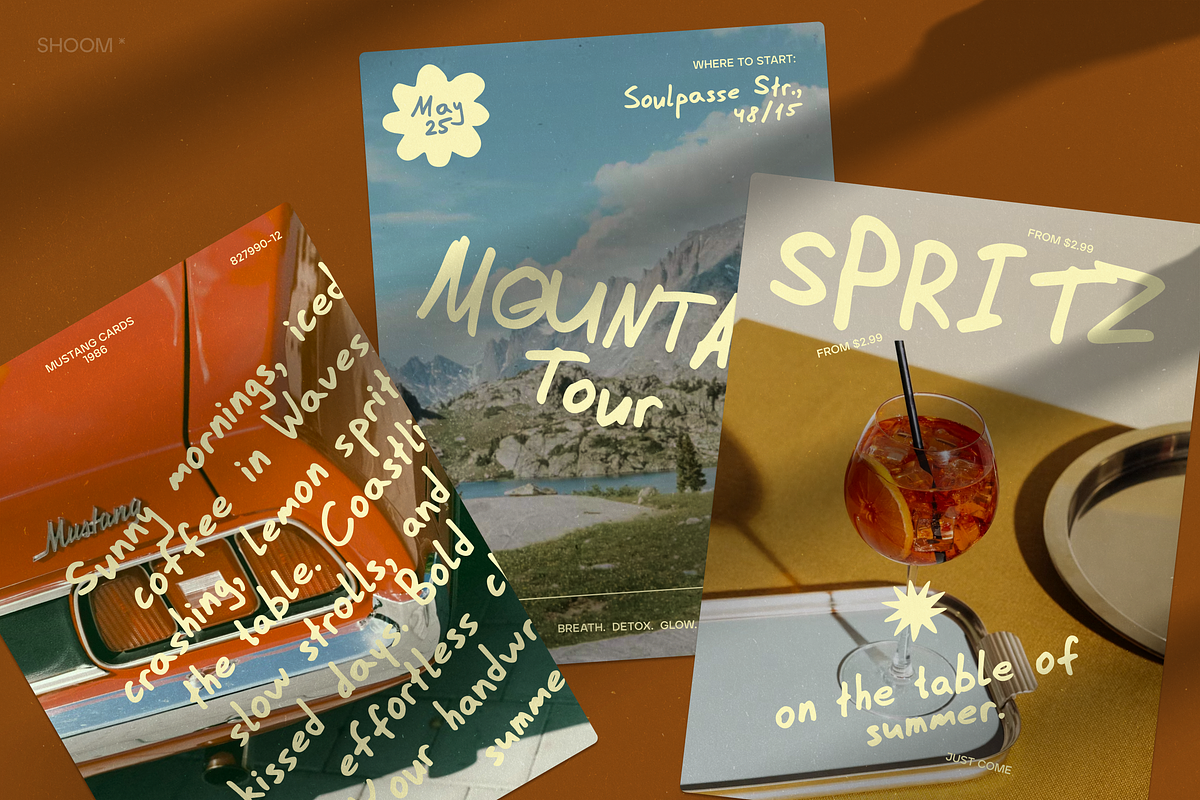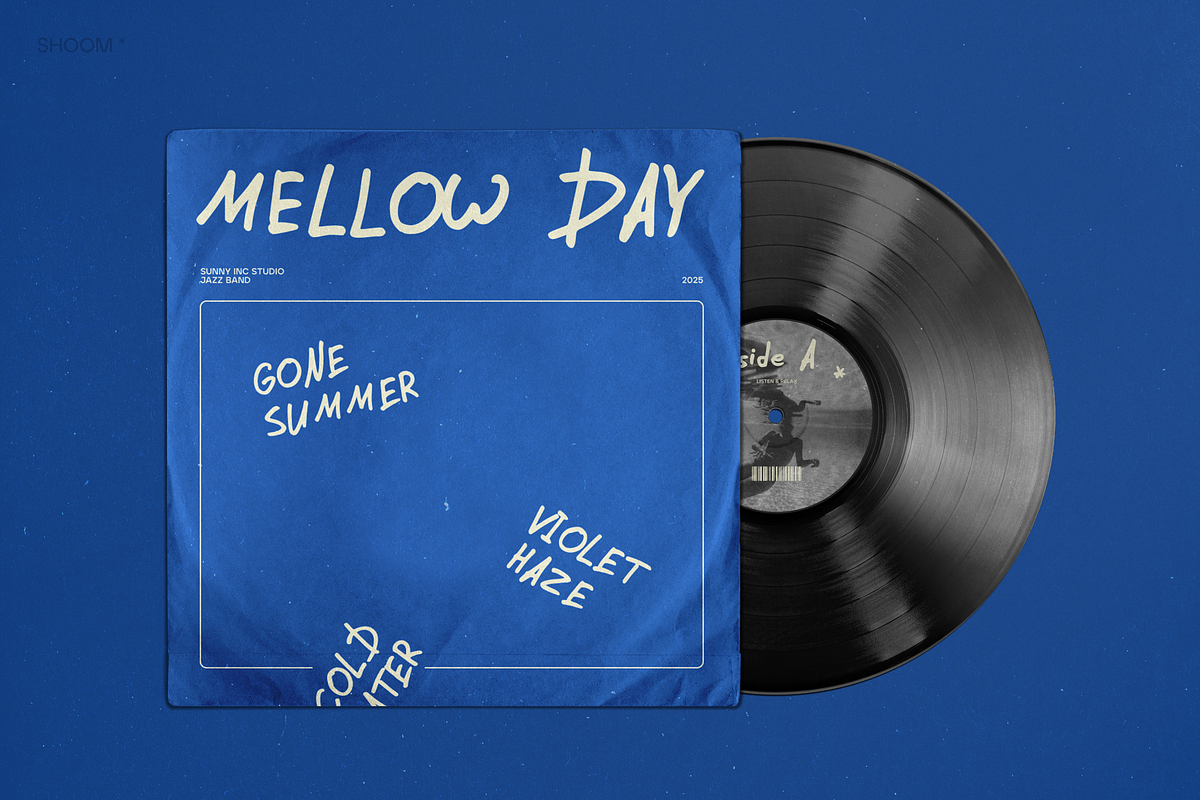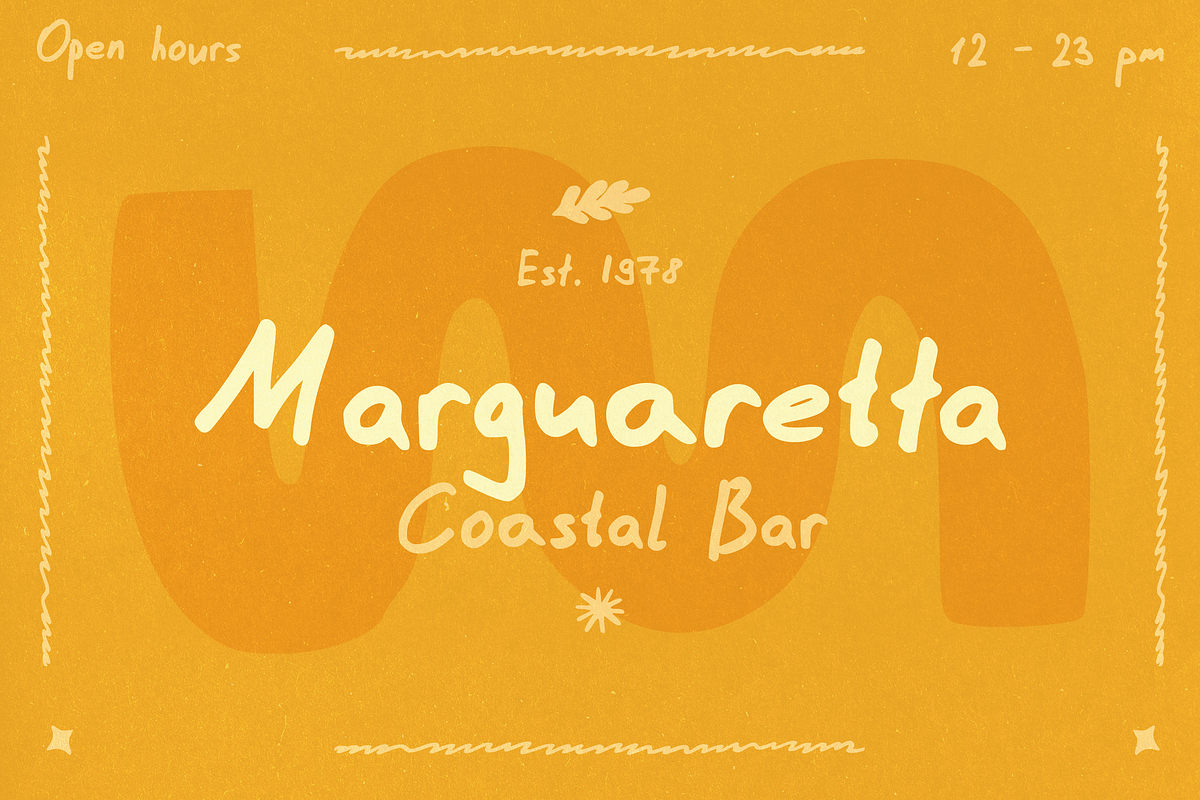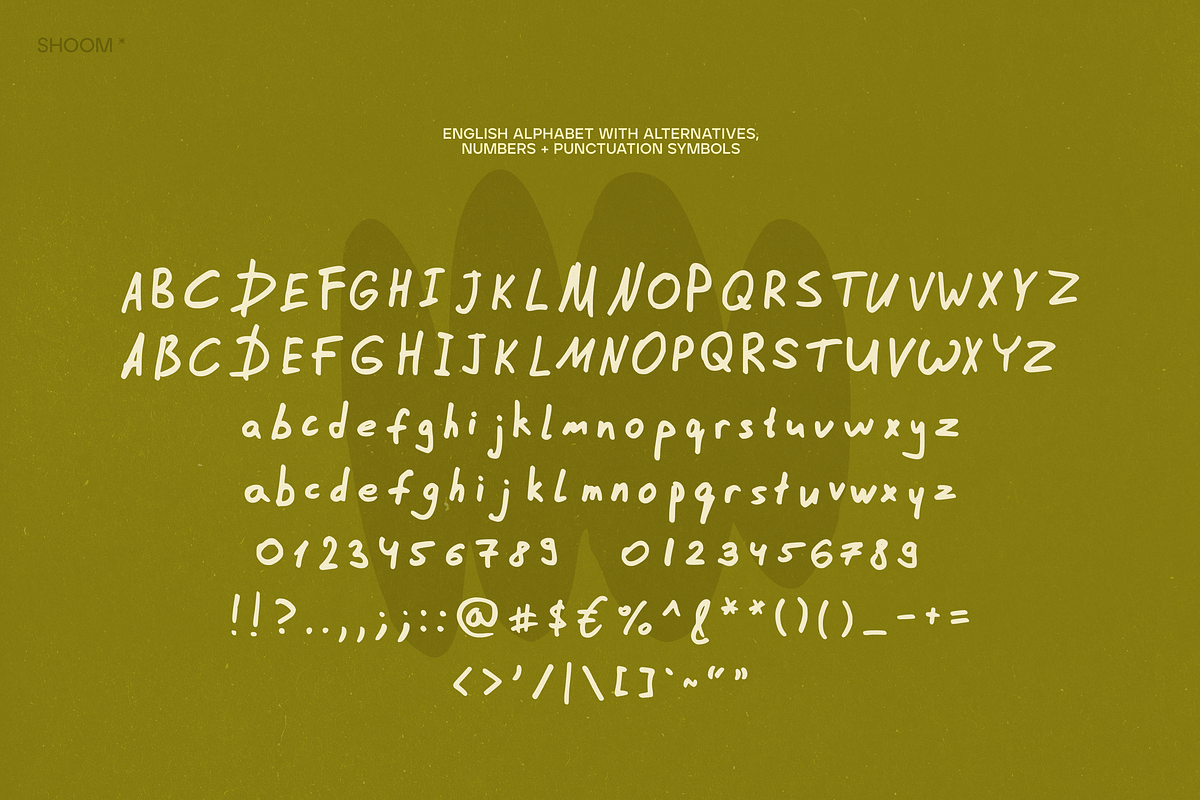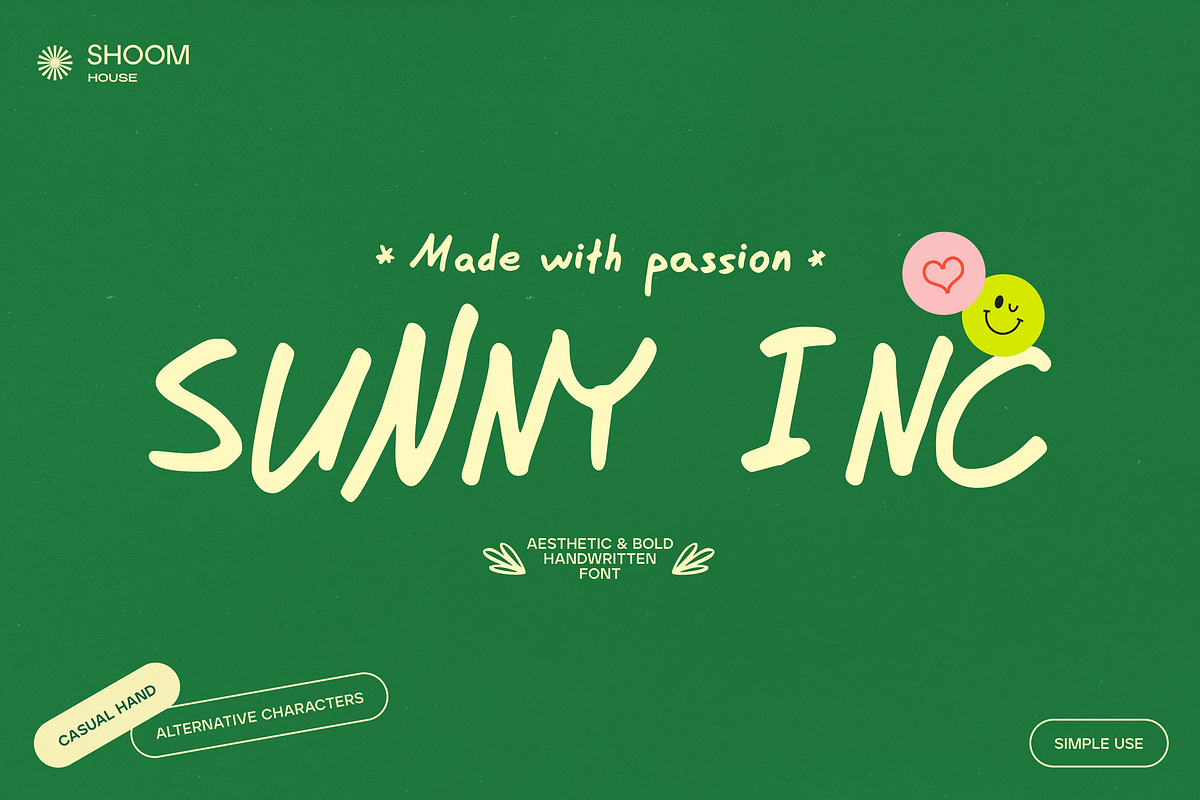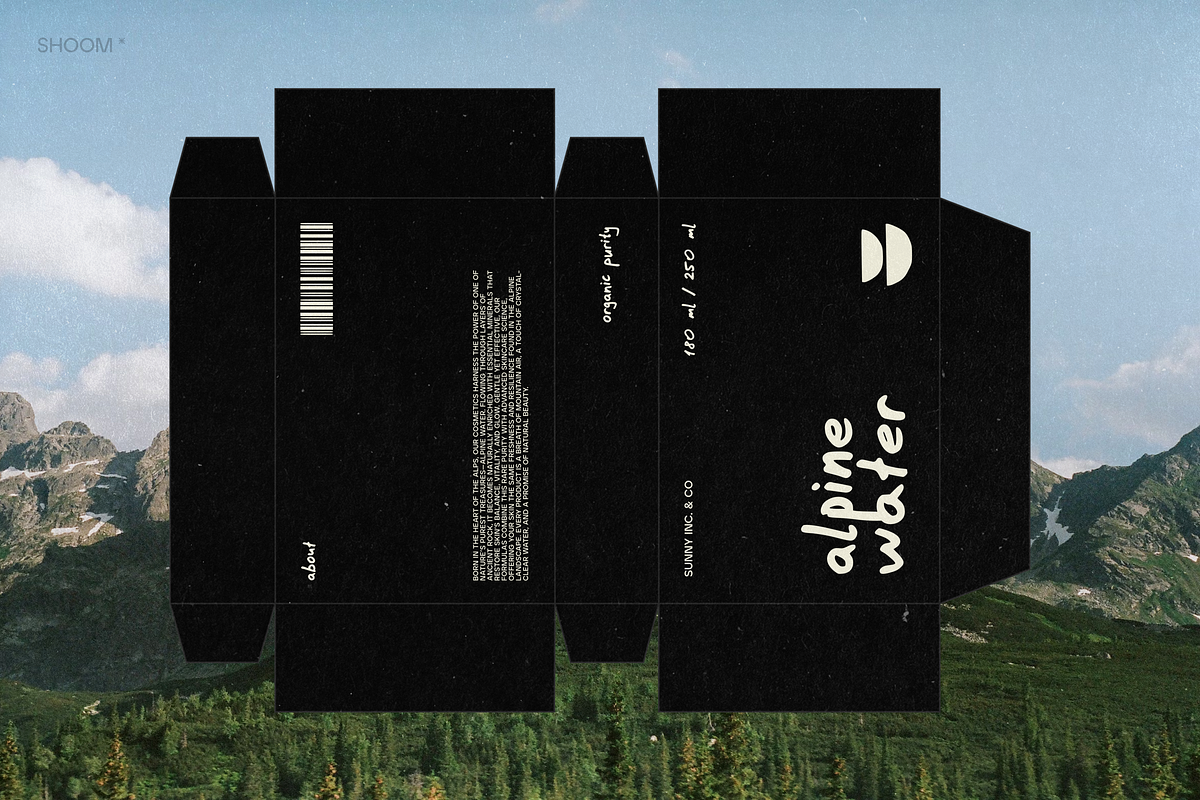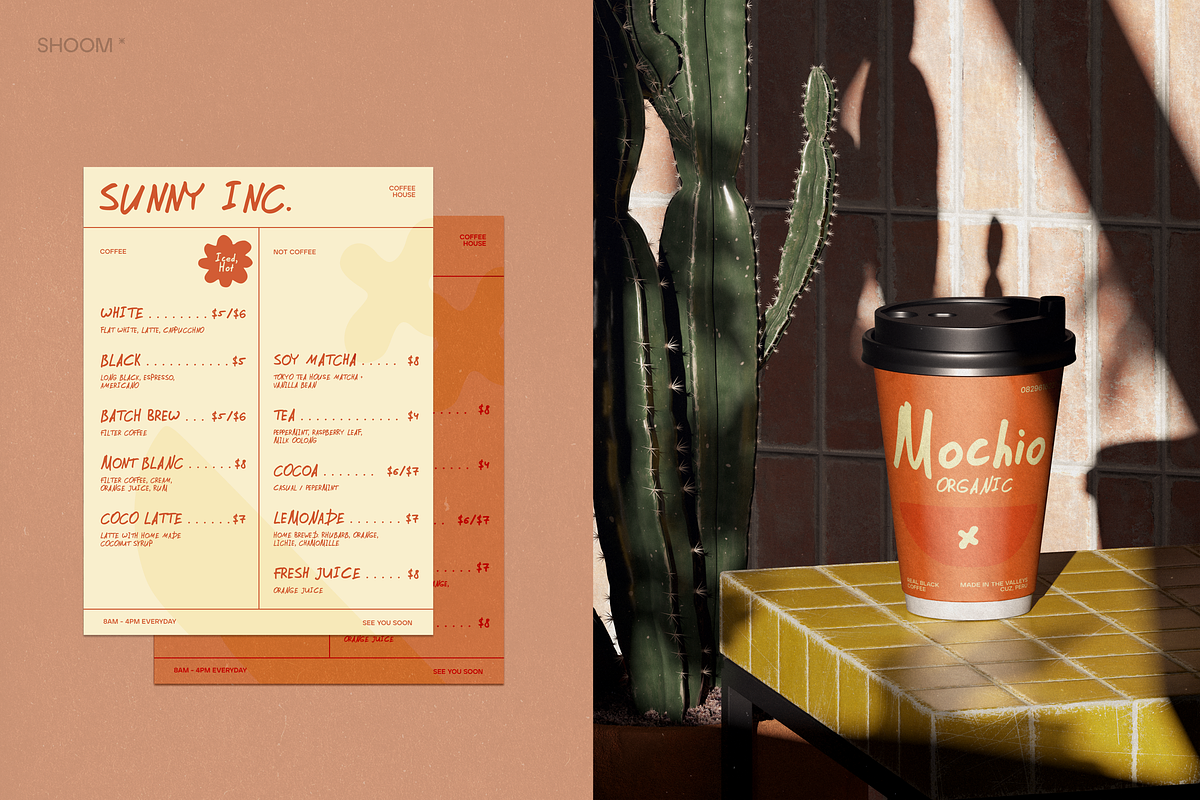
Sunny Inc - Handwritten Font
✽ Sunny Inc is a bold, handwritten typeface that captures the effortless charm of sun-soaked days and slow living. With its organic lines, natural imperfections, and modern edge, it brings a fresh, contemporary feel to any project.
This font was designed to look authentic and relaxed – perfect for branding, packaging, social media graphics, café menus, lifestyle blogs, and anything that needs a touch of personality. Its bold strokes make a statement while still keeping a casual, approachable vibe.
✽ FONT FEATURES
- Uppercase & lowercase English alphabet
- Alternates for natural variation
- Numbers & punctuation symbols
Bring personality to your designs with Sunny Inc – organic, handwritten, and modern.